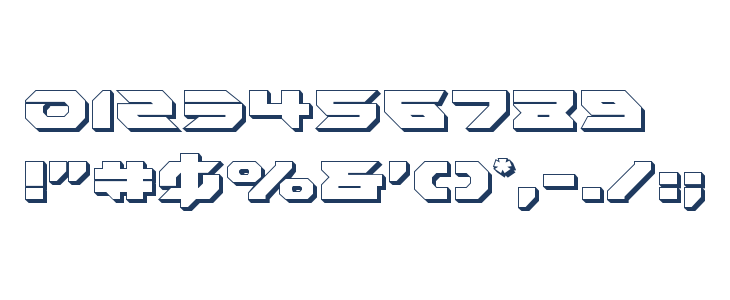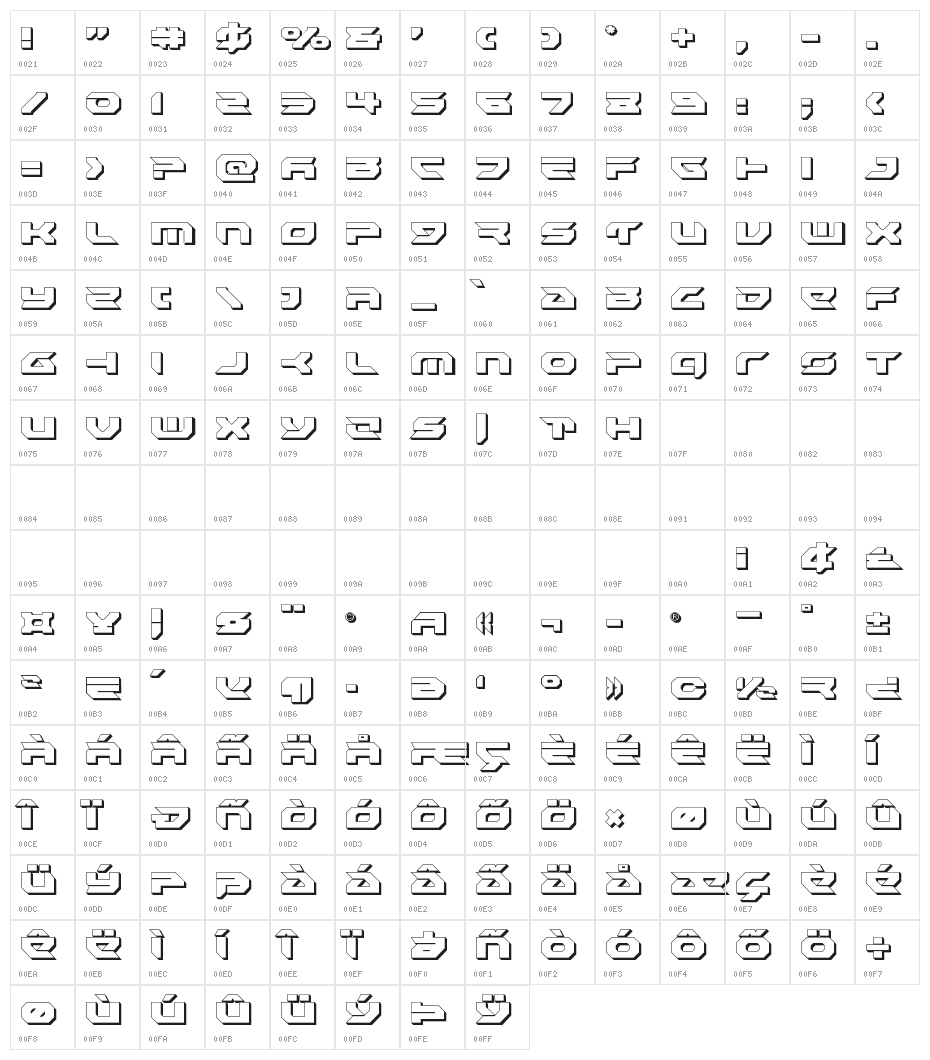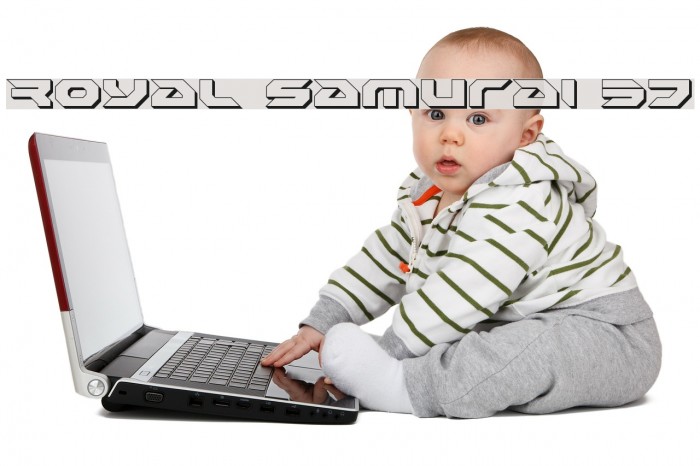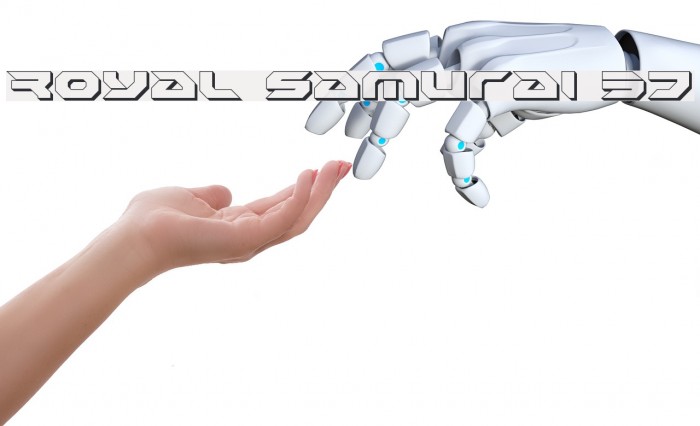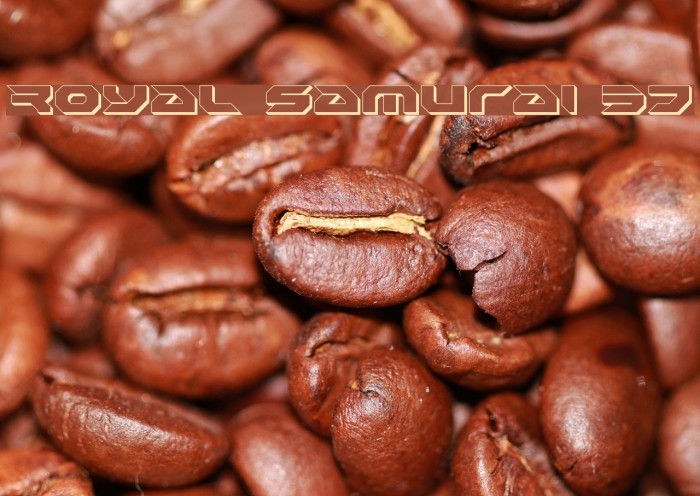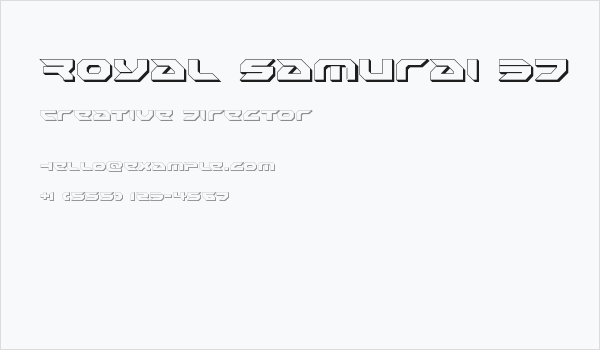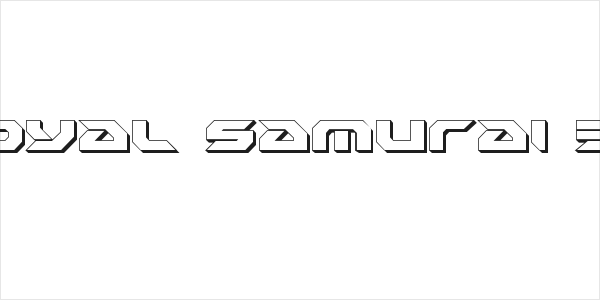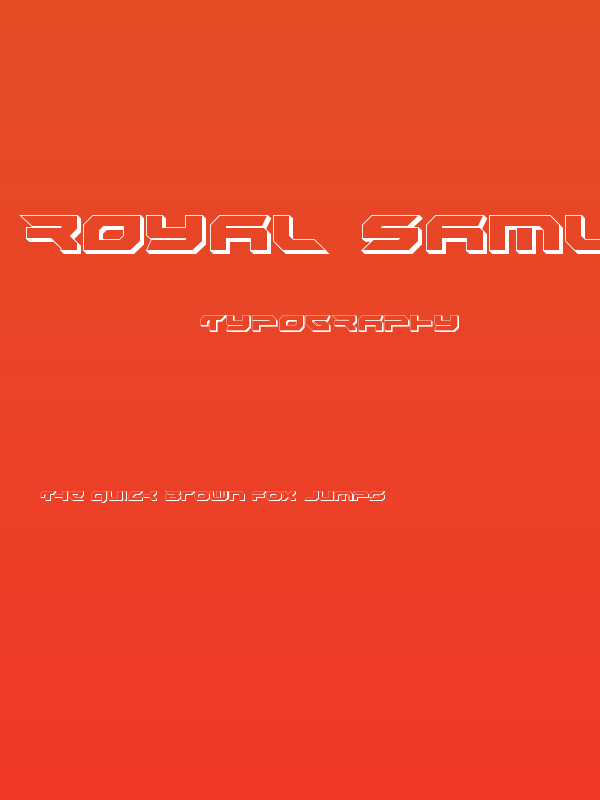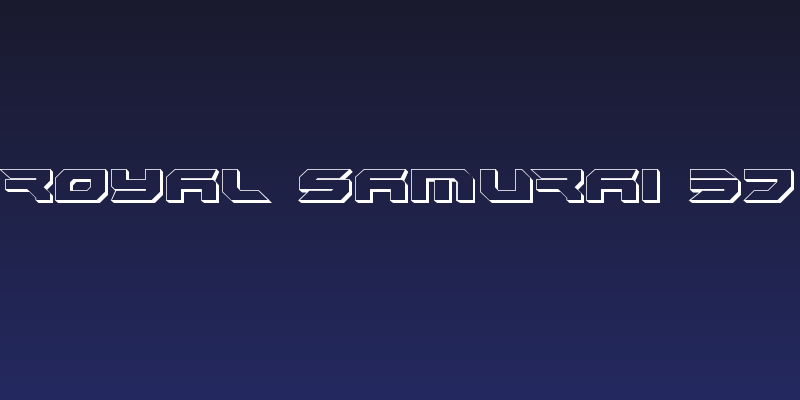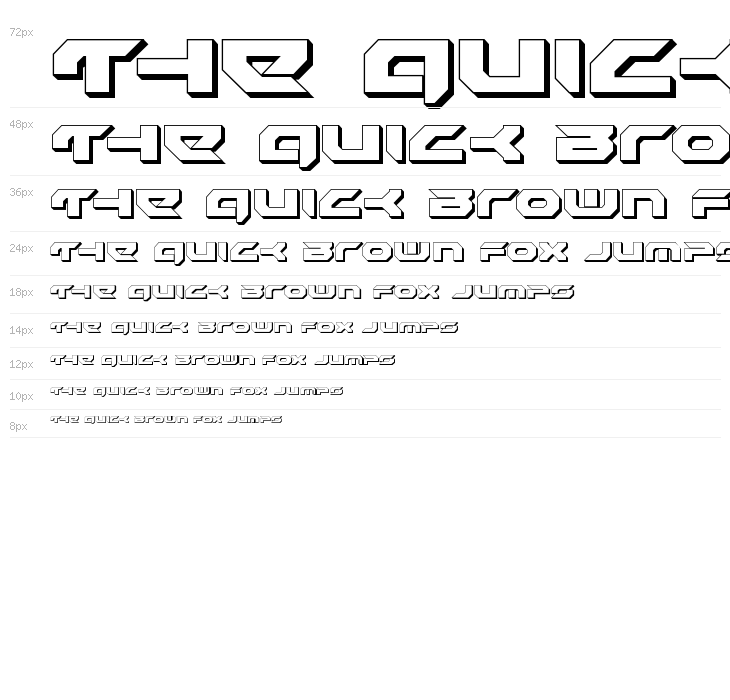
Royal Samurai 3D Font
Royal Samurai 3D Description
This font features a bold, futuristic design with a 3D effect that gives each character a sense of depth and dimension. The geometric shapes and sharp angles create a dynamic and edgy appearance, reminiscent of sci-fi aesthetics. The uppercase and lowercase letters maintain a consistent style, with the numbers and special characters following suit. The font's unique structure makes it stand out, ideal for projects that require a modern and eye-catching look.